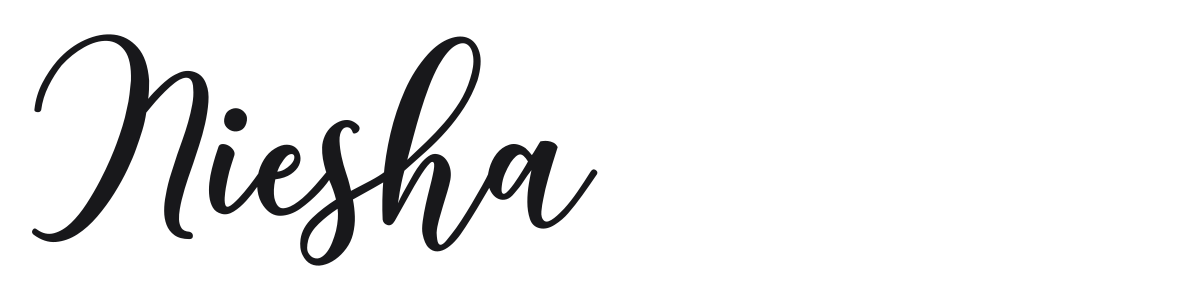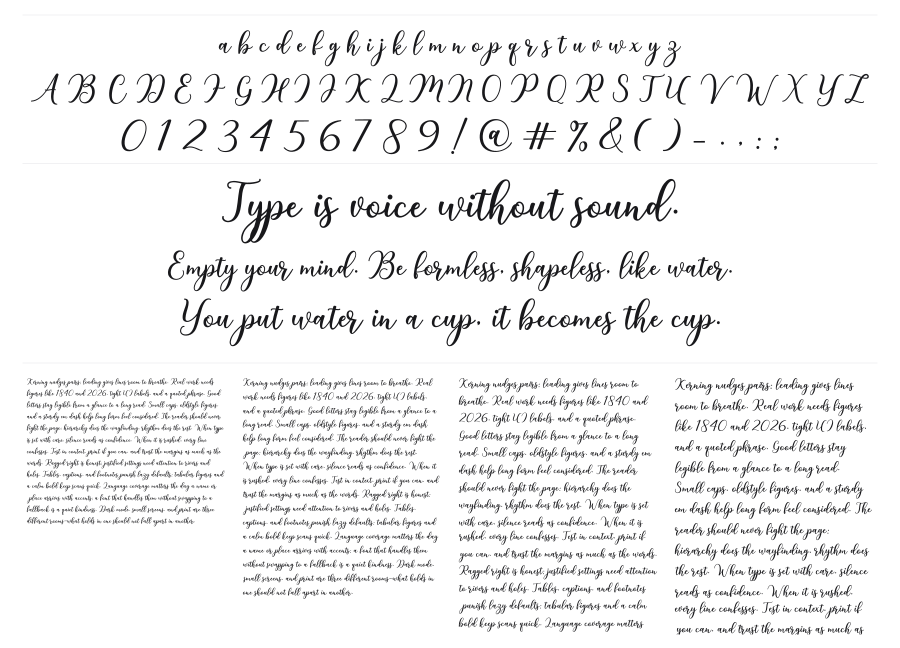
Niesha
Niesha is a flowing casual script with a bouncy baseline and graceful looped strokes that feel genuinely handwritten. Moderate stroke contrast between thick downstrokes and hairline upstrokes gives it charm without tipping into formal territory. It sits naturally in wedding stationery, packaging, and any branding that wants a warm, personal touch.